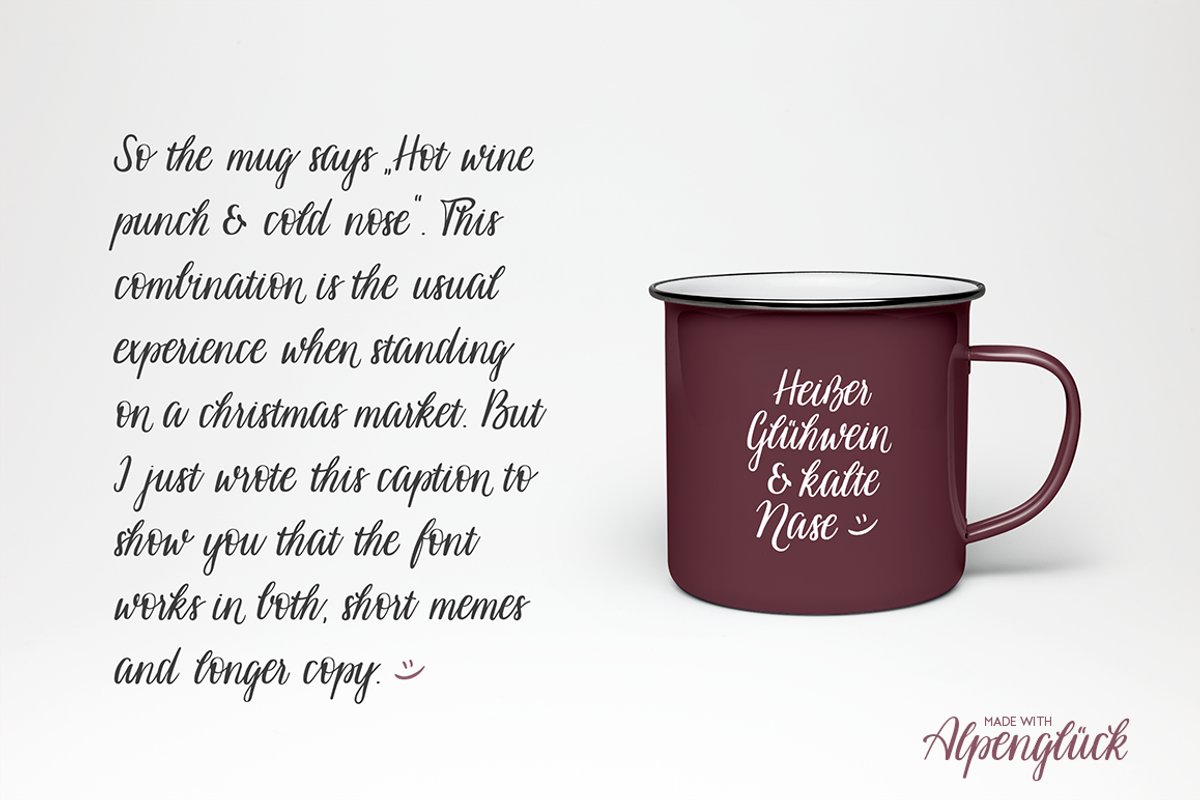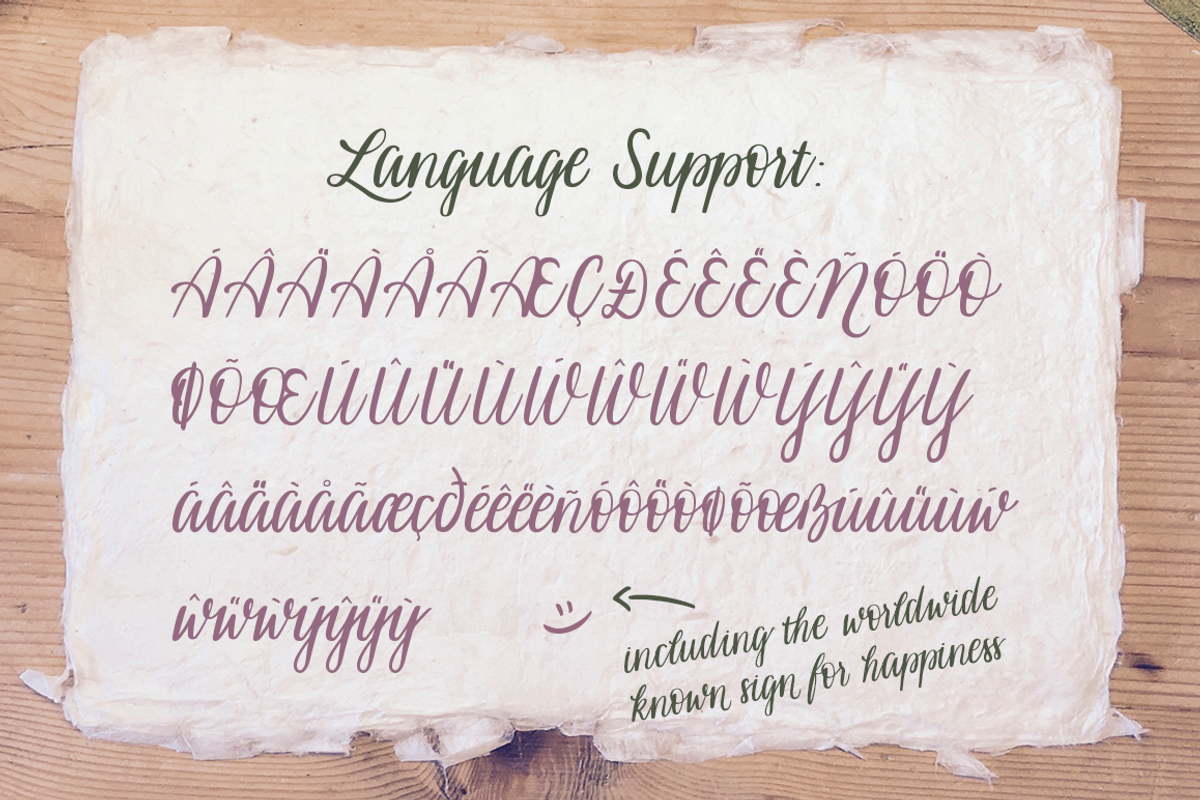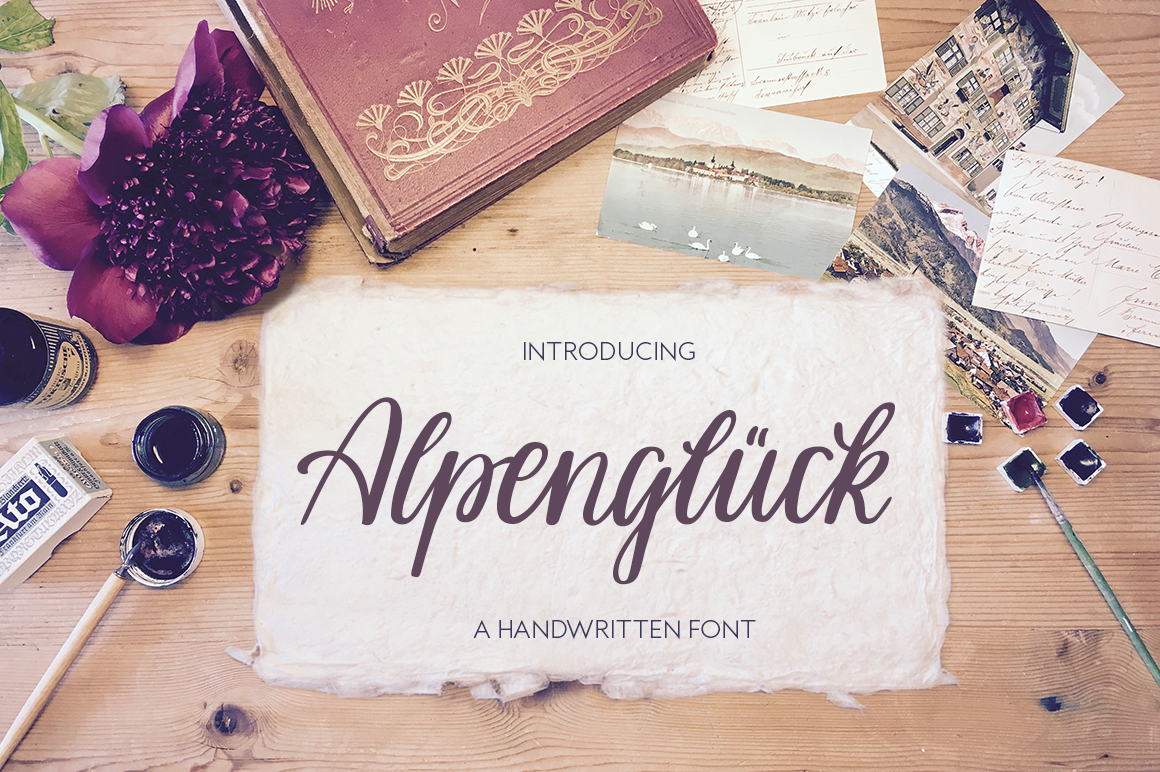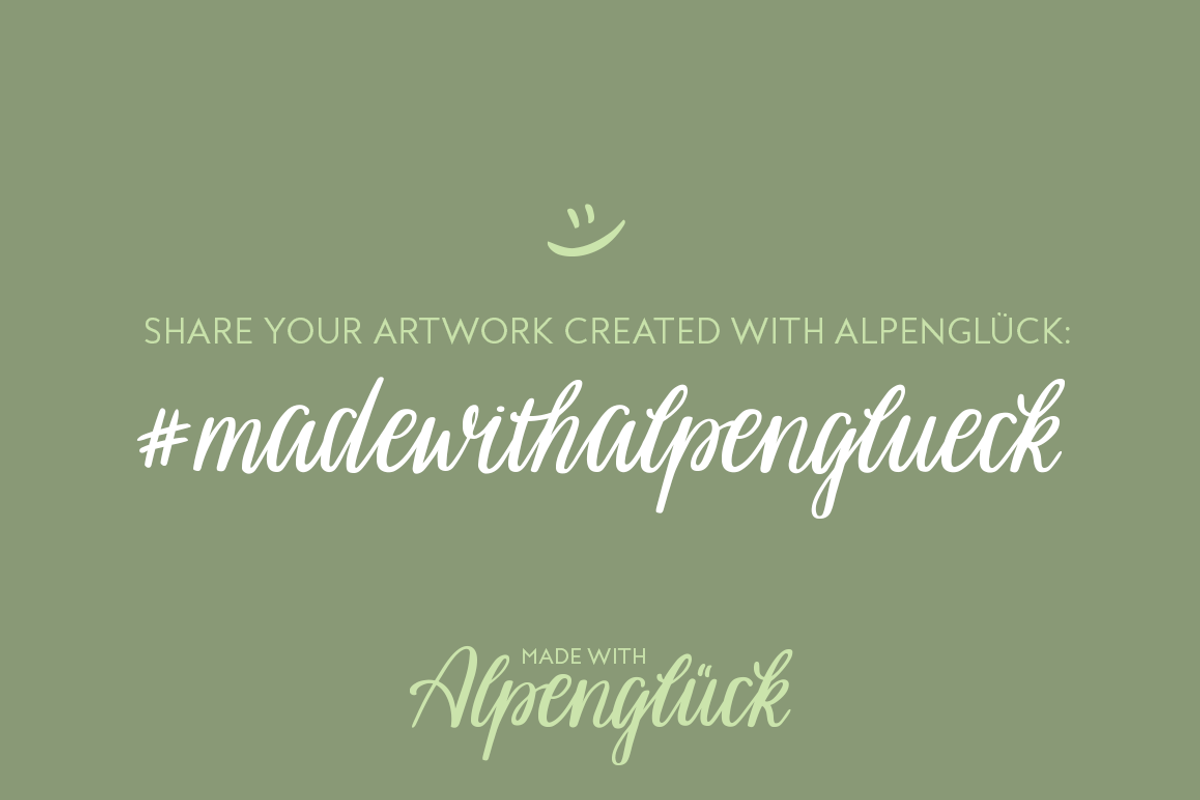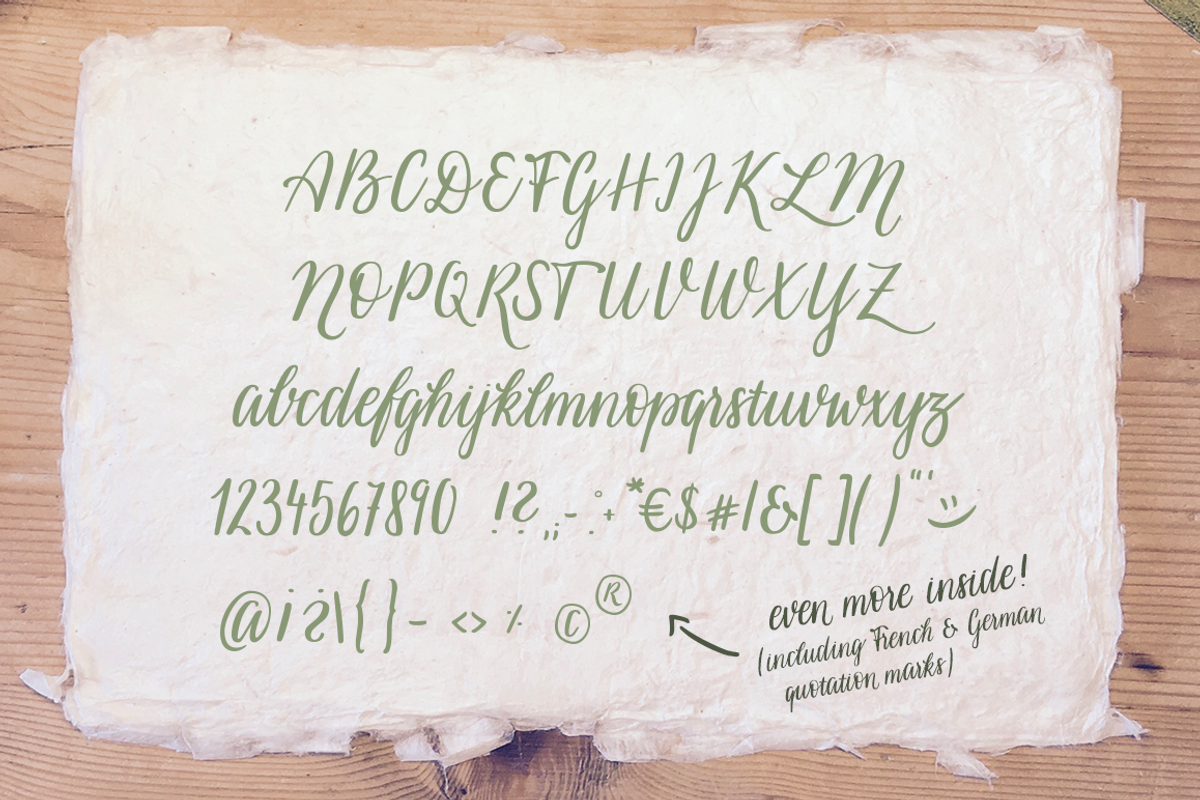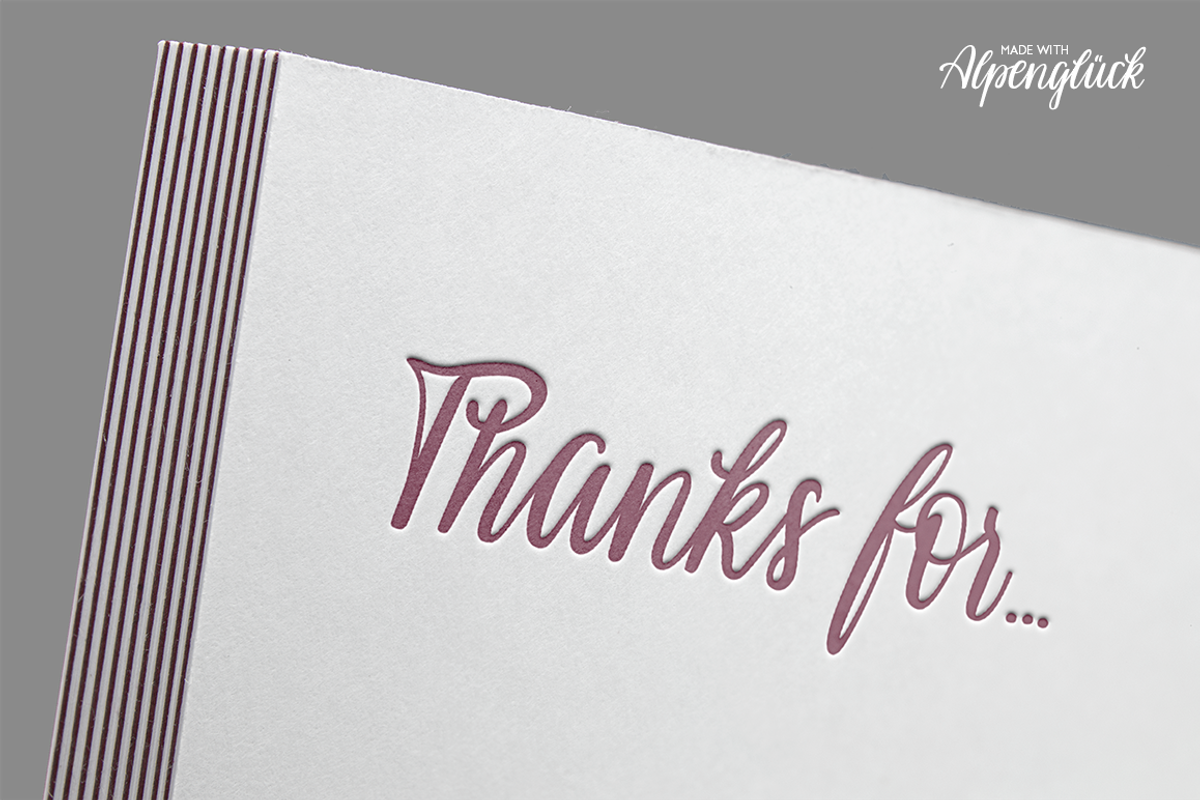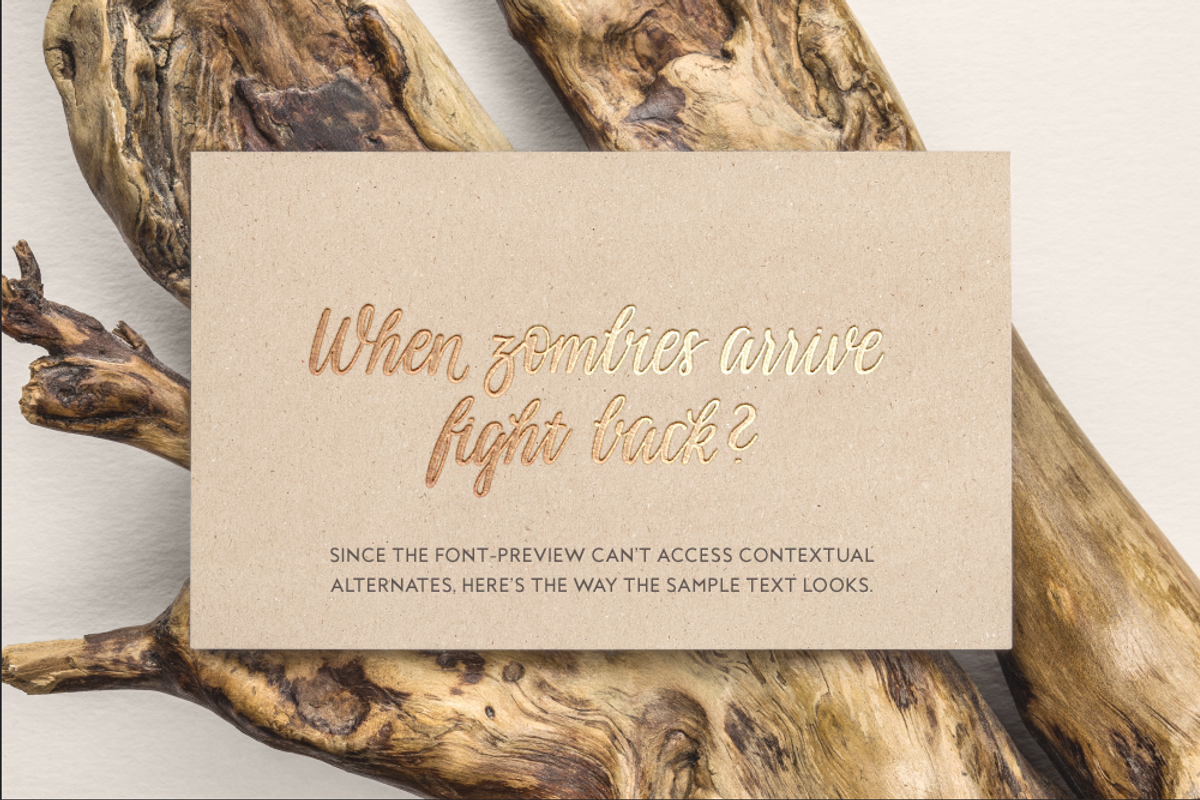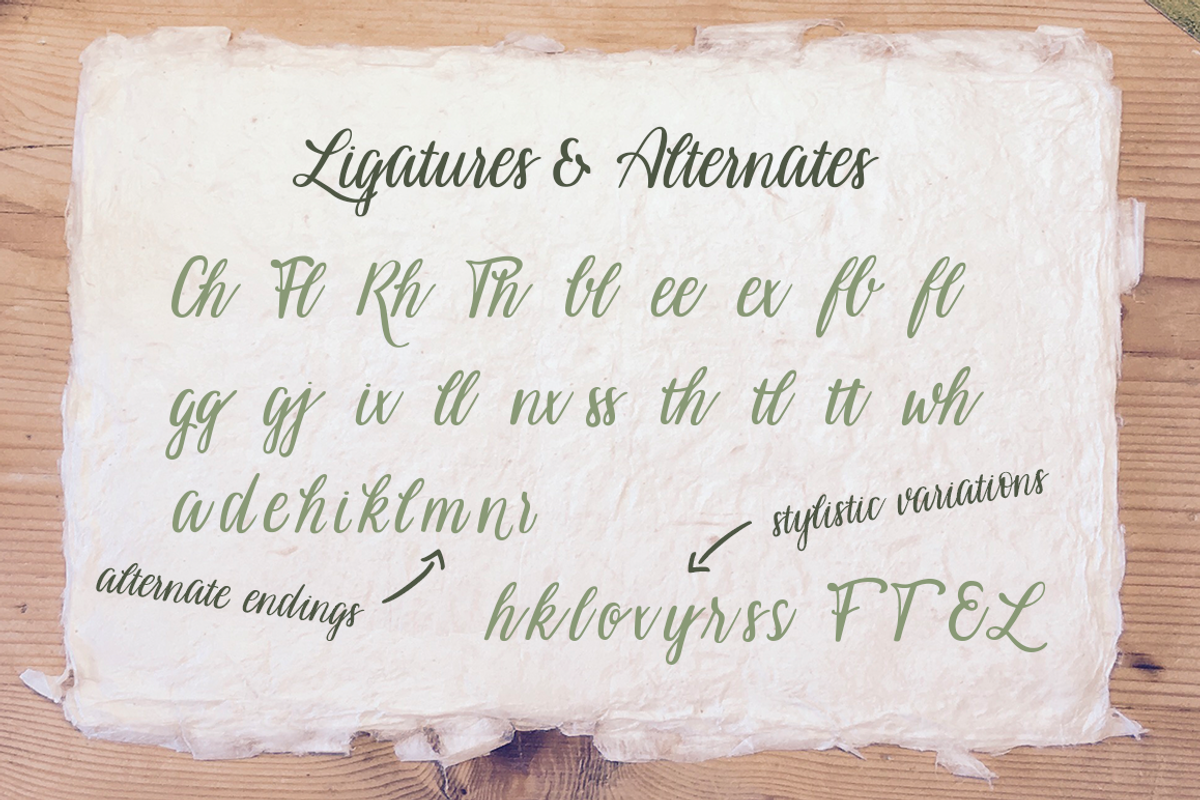
Alpenglueck - a handwritten font
"Alpenglück" is a well balanced, yet naturally flowing brush font inspired by my grandfathers pictures of the Tyrolean Alps in the 1950s. That's where the name originates from: "Alpine Happiness" or more general "Mountain Happiness". It's this unique feeling of joy, peace and awe you experience when standing on a mountain peak, solely surrounded by nature and happily exhausted from the way up.
The name also triggers the nostalgic sentiments of a long bygone era of alpine pioneers. It's the colors and the light, the cozy mountain huts and true friendship that wrap you up in a soft blanket of "Alpenglück".
I hope all these positive vibes transfer to the products you are going to make with "Alpenglück". Whether it's a wedding invitation, a branding project or maybe even a love letter to someone special. I would be super stoked to see what you are creating with "Alpenglück". Just use #madewithalpenglueck to let me know :)
"Alpenglück" has multilingual support. Please refer to the preview images to see all the glyphs included. (And a short side note to buyers from German speaking buyers: German is my first language, so the font is extensively tested in German as well.)
I included a smiley in the font (as you might have noticed in the preview images). You can access it by typing "^" plus "space bar". It's just the way I would write a card or short message to a friend. I almost always add a smiley. So it had to be part of the font. :)